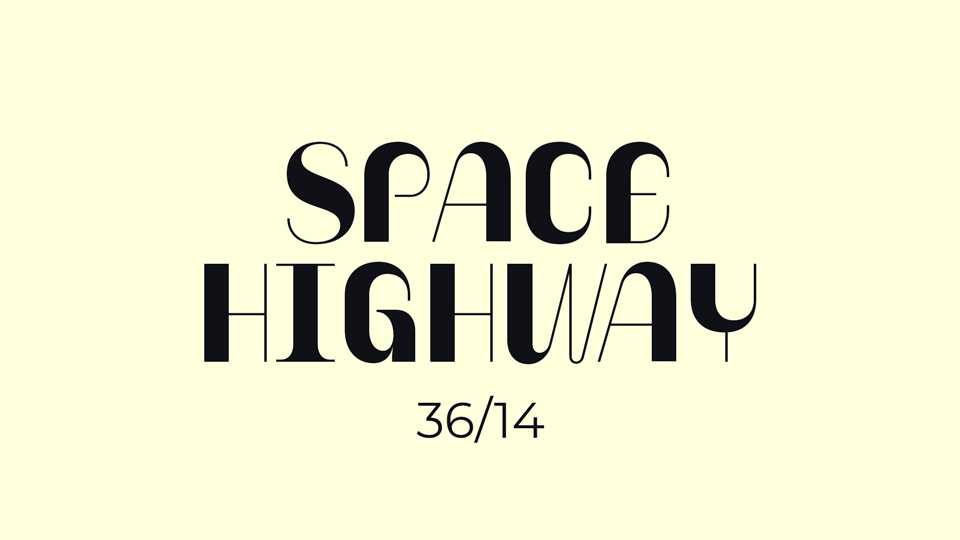
Download Space Highway font, a display typeface inspired by old science fiction book covers and movie posters. Space Highway has no specific reference material, but the strokes and curves of a letter look really fast.
Designer: Justin Penner